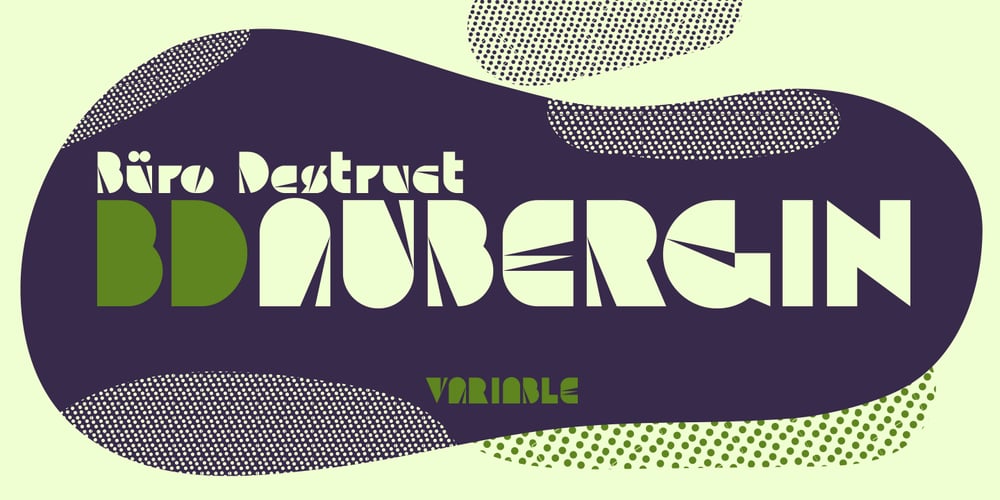
BD Aubergin Font Family was designed by Lorenz (Lopetz) Gianfreda and published by Typedifferent. BD Aubergin contains 3 styles and family package options. The typeface with a slice: BD Aubergin is somehow reminiscent of the bauhaus era but with a modern twist, great for the use in titling and giving character to your print and screen work. The variable version morphs from filled (flat) to sliced.